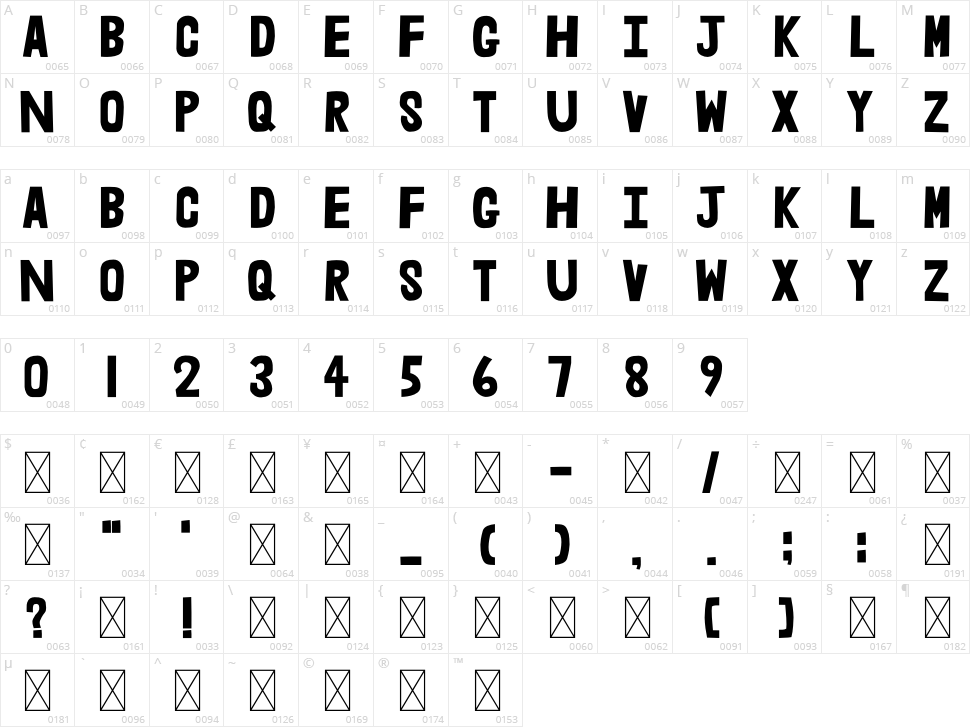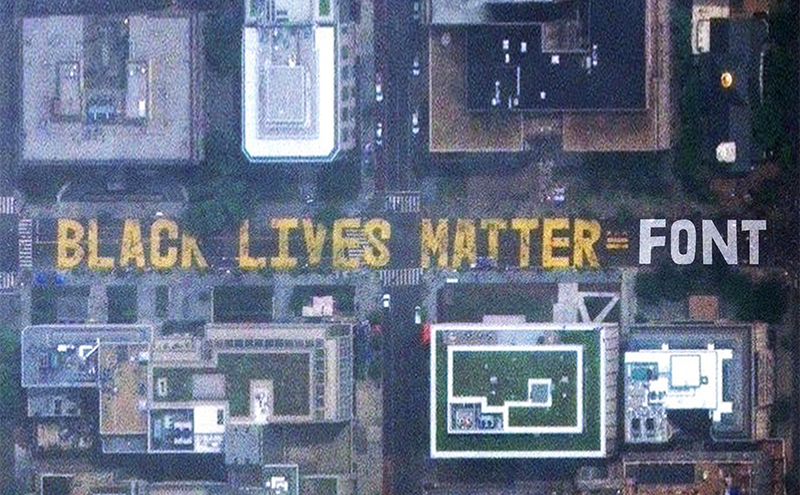
On 6/5/20 a message of solidarity was painted on the streets of Washington D.C by city officials.
5 days later they took it down.
We created this font because this message must live on.
KEEP WRITING LETTERS.
KEEP SPEAKING OUT.
KEEP CHALLENGING THE SYSTEM.